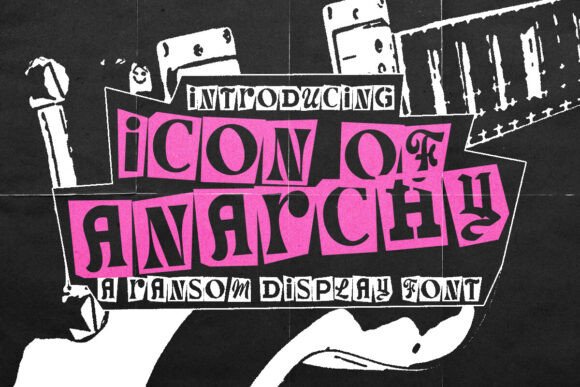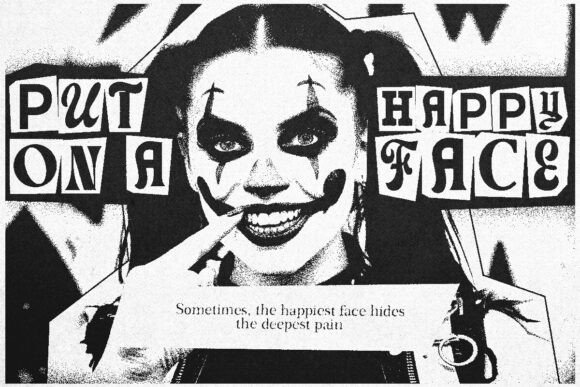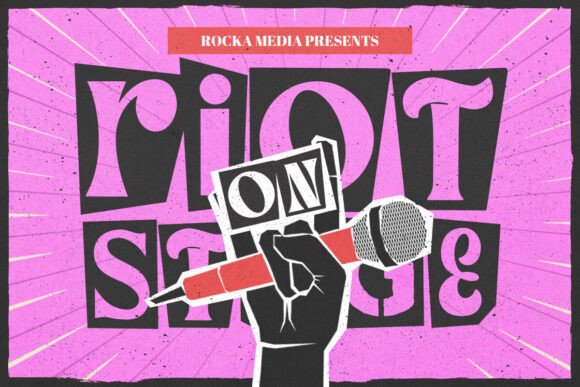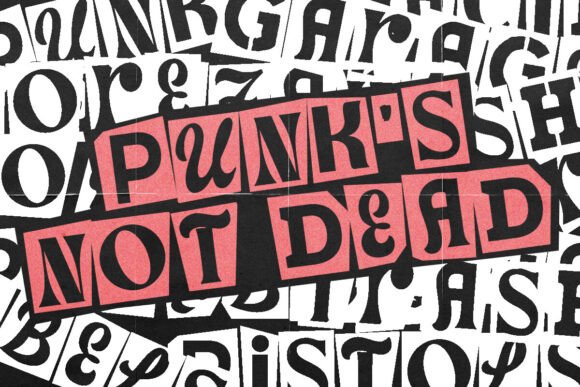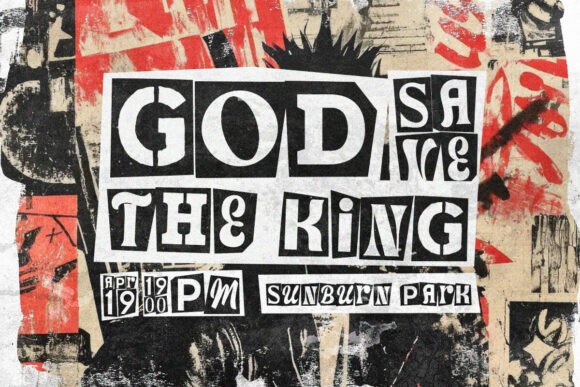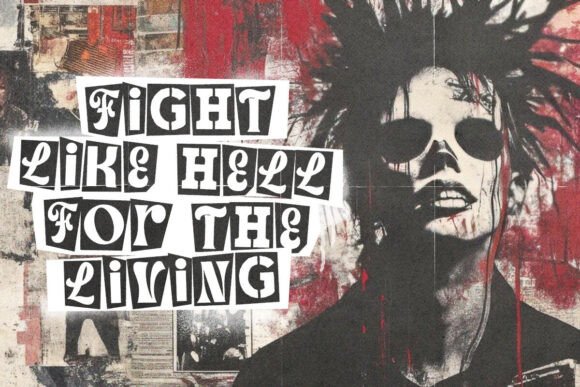
Introduction to Dirty Punks Font
Dirty Punks captures the energy of punk vibes with its cut-and-paste letterforms.
The combination of upper and lowercase letters offers flexibility in creating unique designs that break traditional rules This font is perfect for logos, bold advertising, zines, album covers, and other creative works that need a rebellious, DIY touch.
Key Features of Dirty Punks Font
Why Choose Dirty Punks Font?